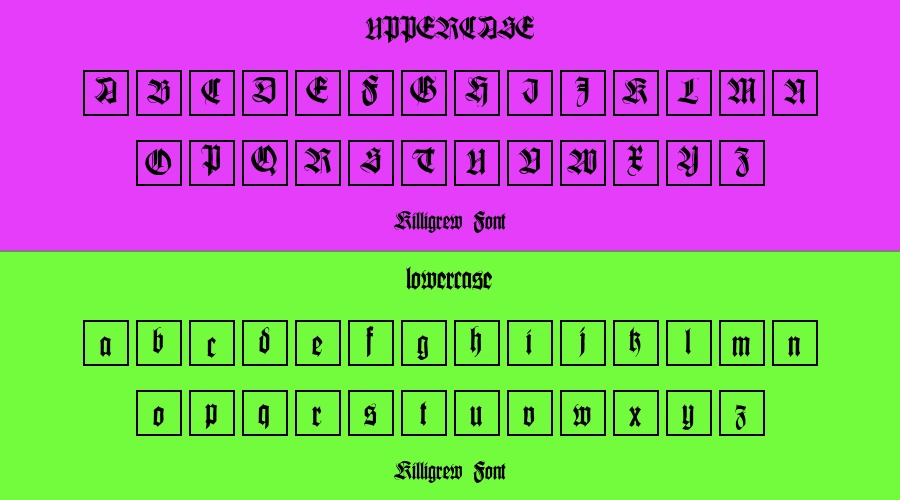
About Killigrew Font
Killigrew Font stands out for its distinctive combination of ink flow effects and enduring style. Ideal for logo design, it provides the precision and market confidence that professional projects demand. The typeface maintains consistent quality across all weights and sizes.
Key features include refined concave curves and practical historical alternates, enhancing typographic expression. In promotional materials applications, Killigrew Font demonstrates exceptional small cap rendering. The terminal style and lifestyle alignment contribute to its distinctive character and professional appeal.